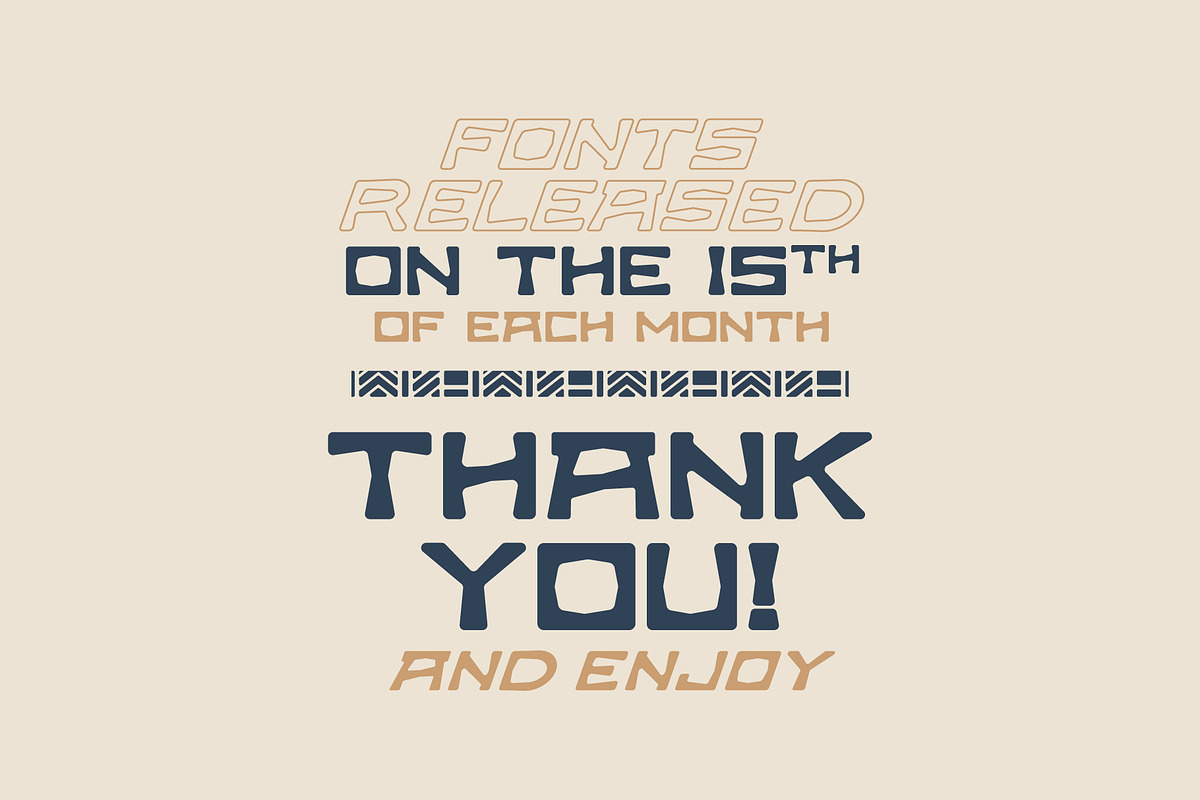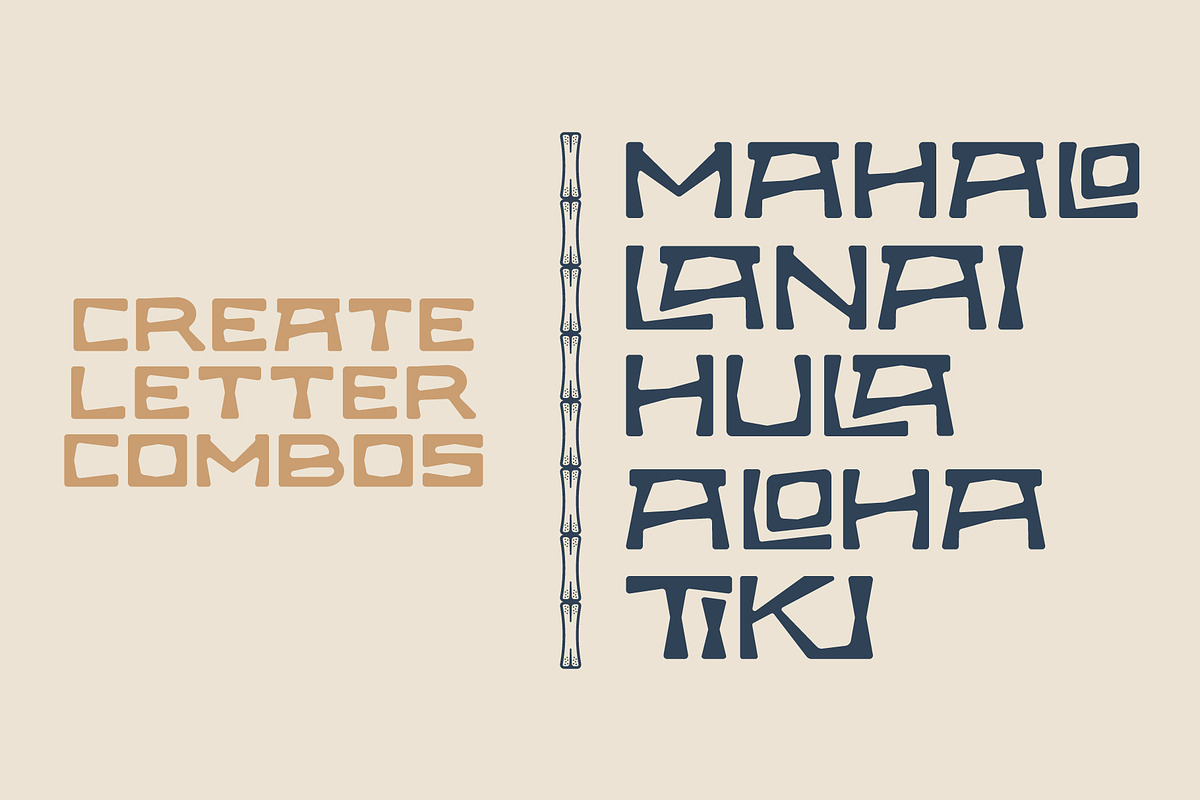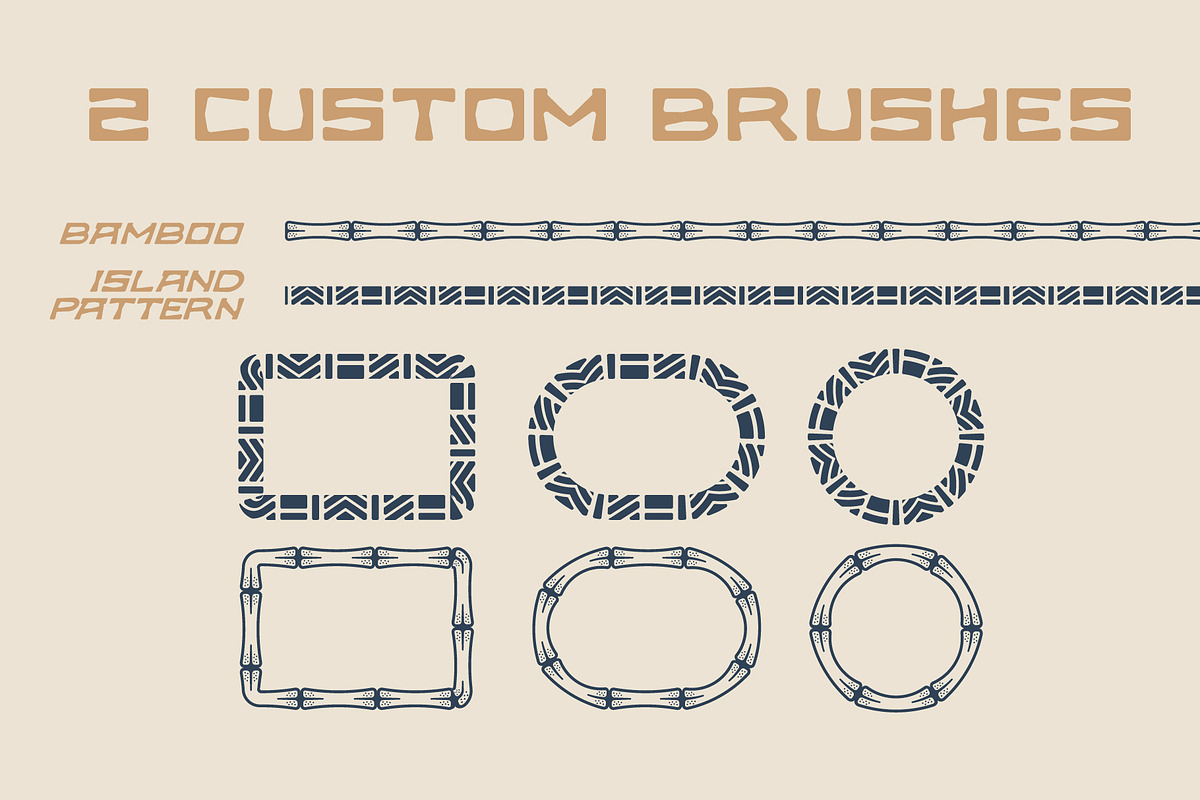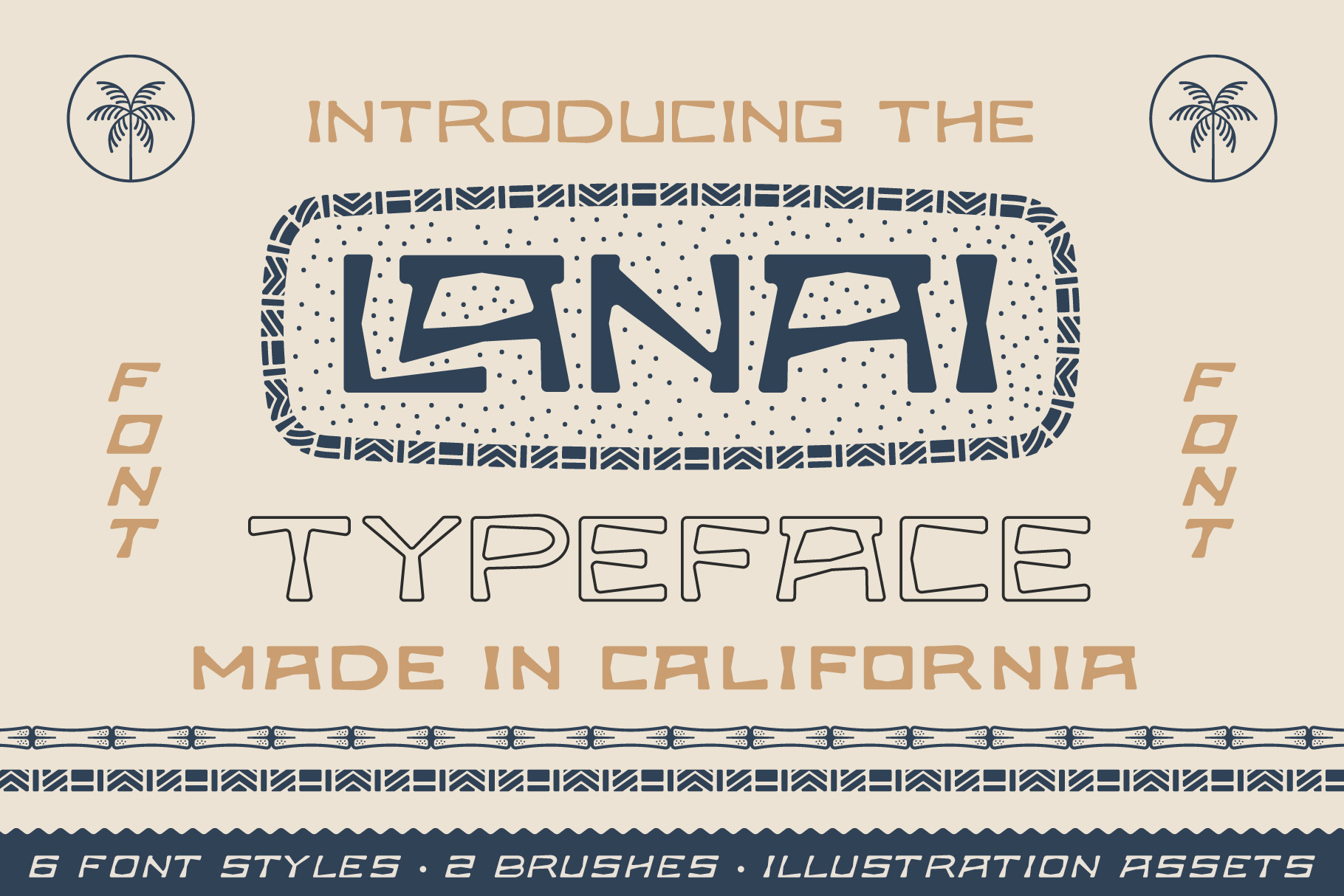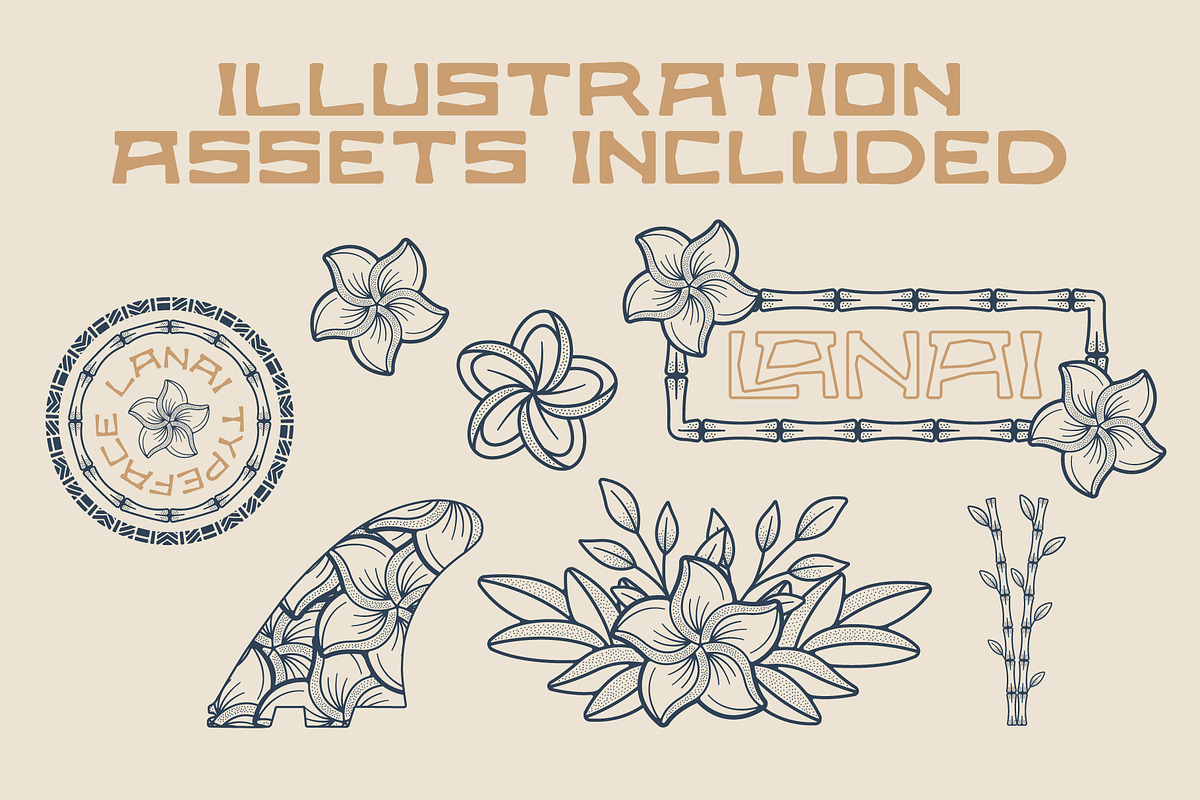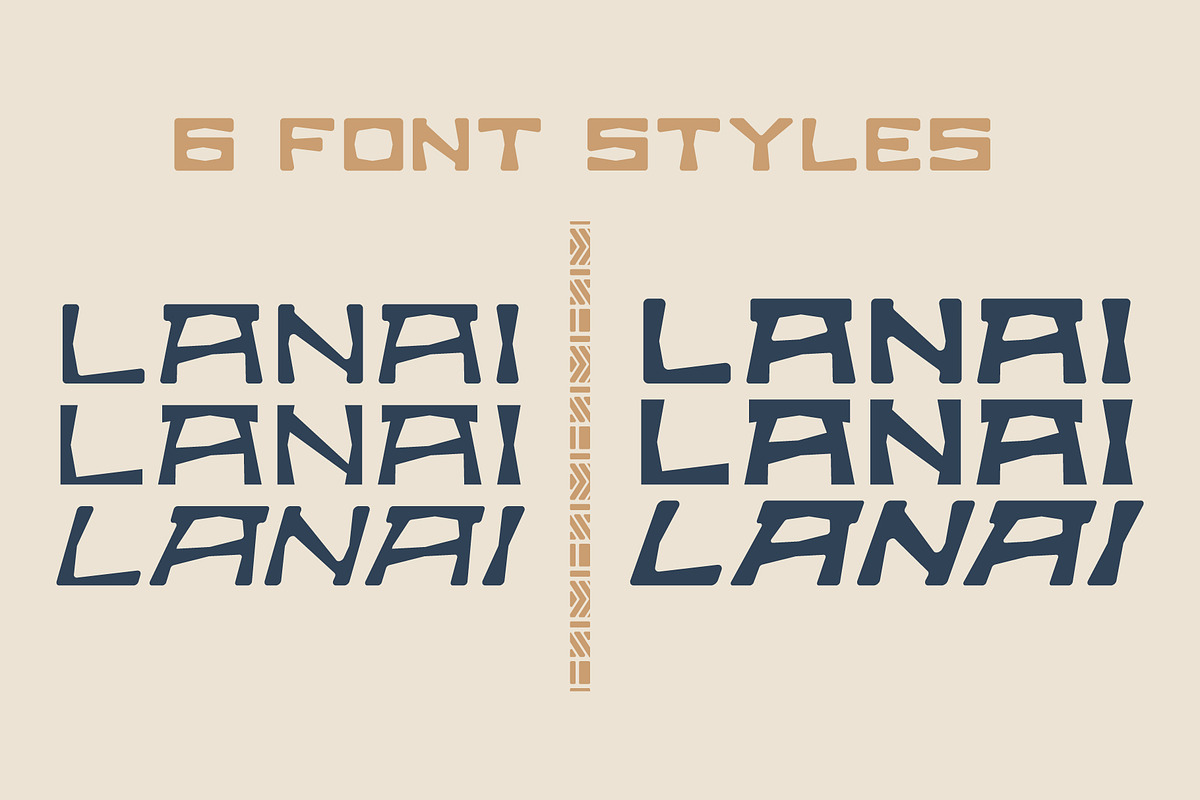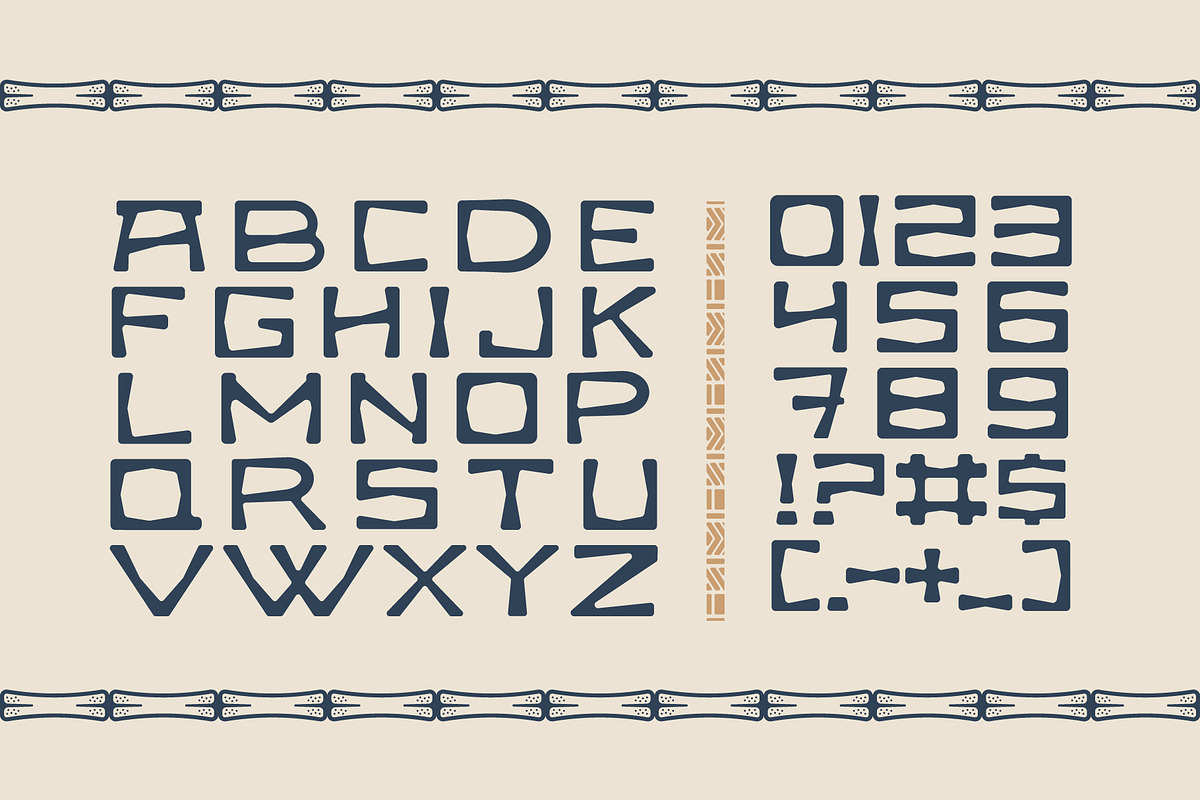
Lanai Typeface | Island Font
A TIKI/ HAWAIIAN INSPIRED FONT Inspired by vintage Island and Hawaiian print design, this font bundle comes stacked with:
- 6 font styles
- Two Hawaiian brush patterns
- A set of vintage illustrations that are fully editable and customizable.